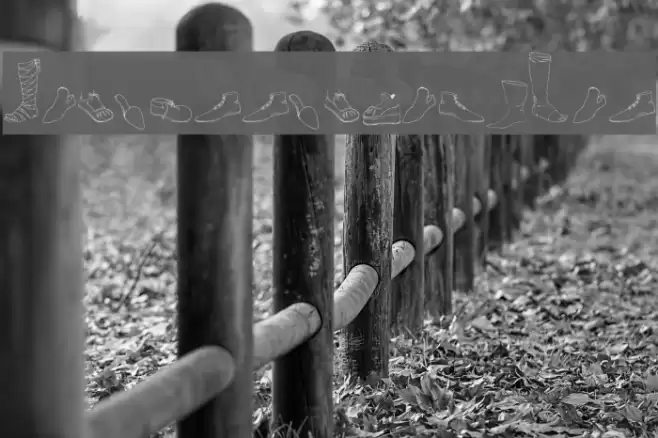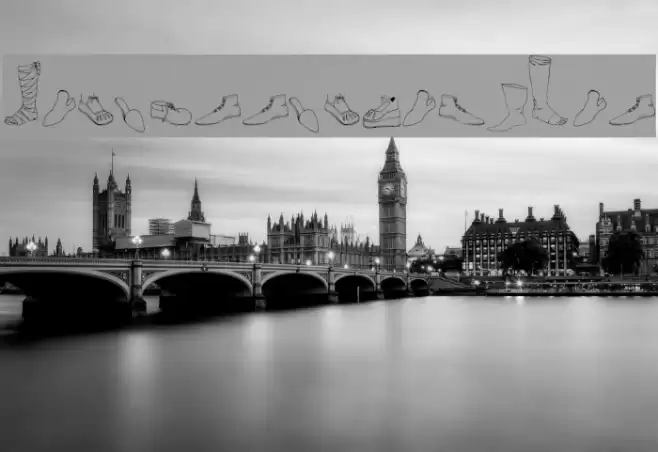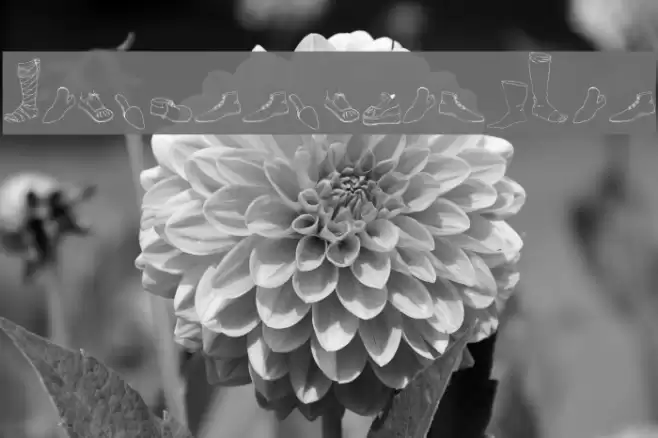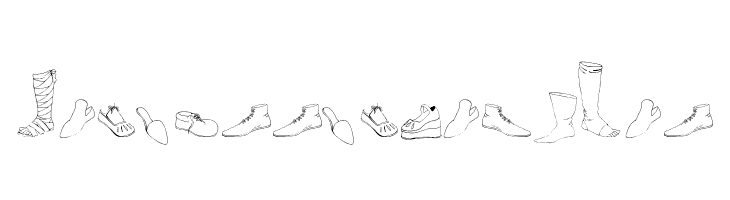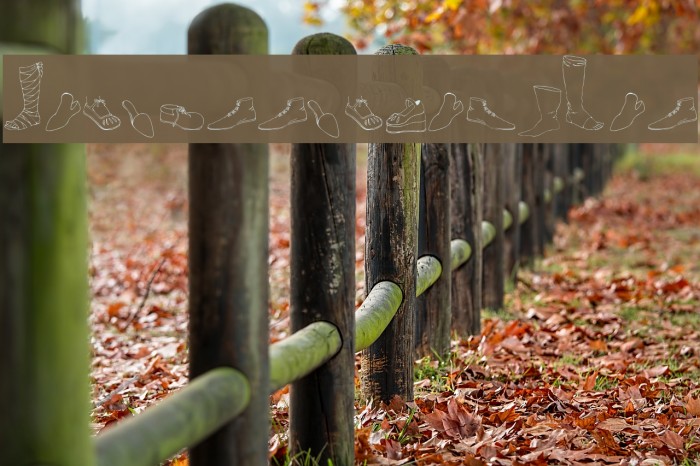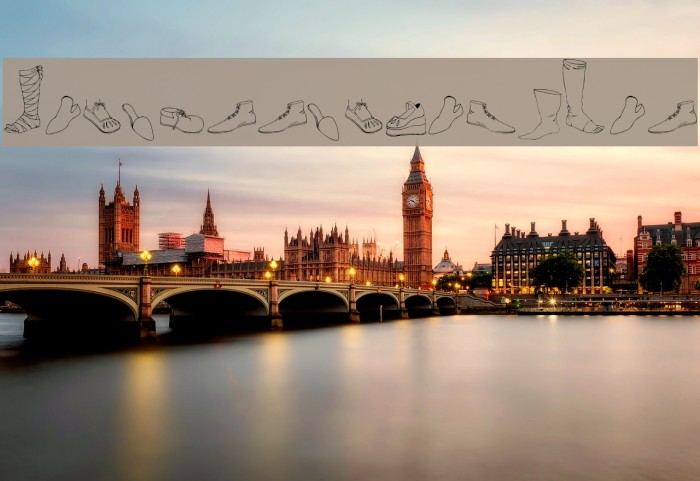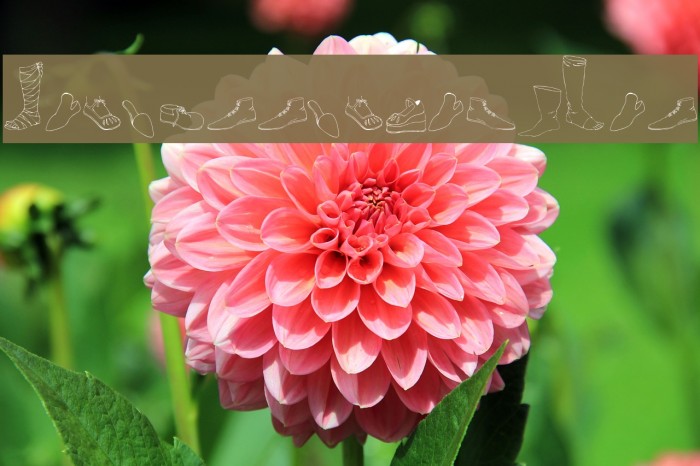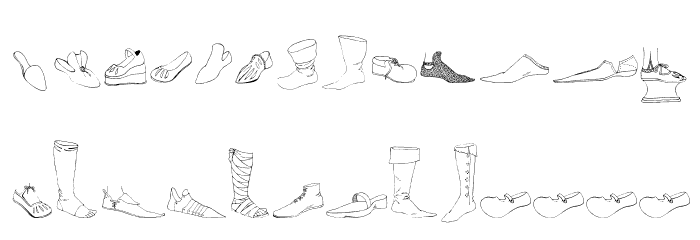
RenaissanceShoes Font
RenaissanceShoes Description
A decorative font composed of hand-drawn illustrations of various Renaissance-era shoes, each character represented by a unique shoe or boot design with fine linework and minimal shading.
Hand-drawn Renaissance shoe illustrations form each character from Uncategorized fonts.
- Proposed Projects: Historical posters, educational materials, themed invitations, museum displays, costume design guides.
- Weight: Light
- Overall Style: Decorative, Historical
- Use Case: Display, Themed headlines, Educational graphics